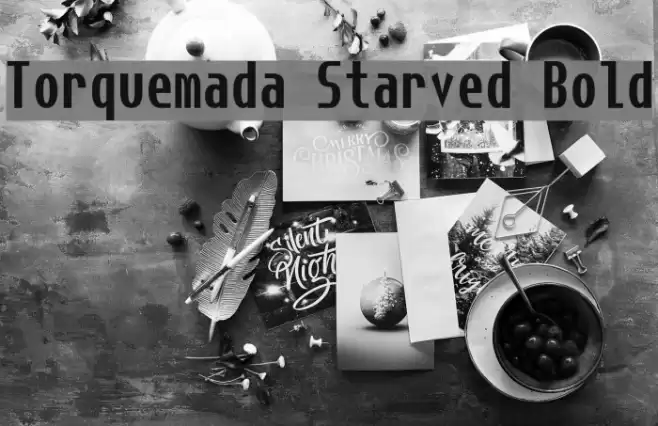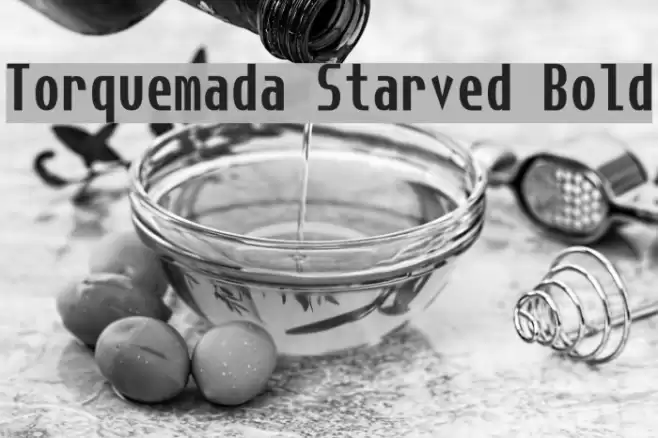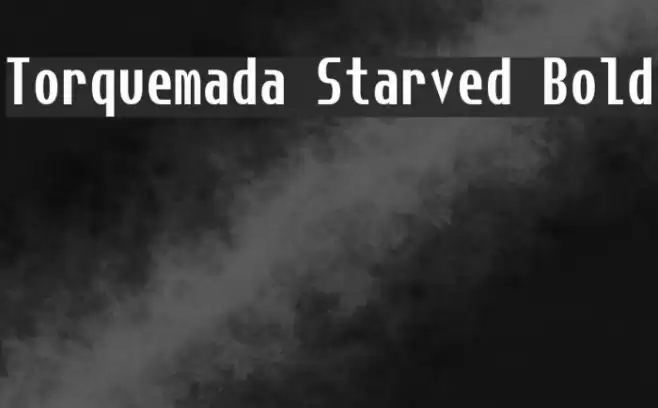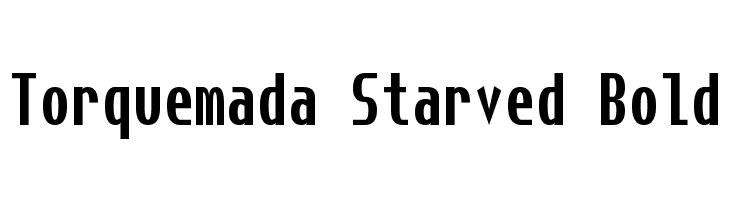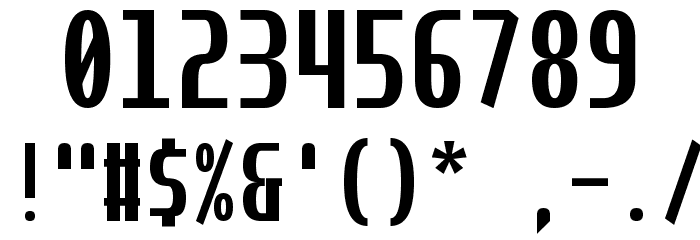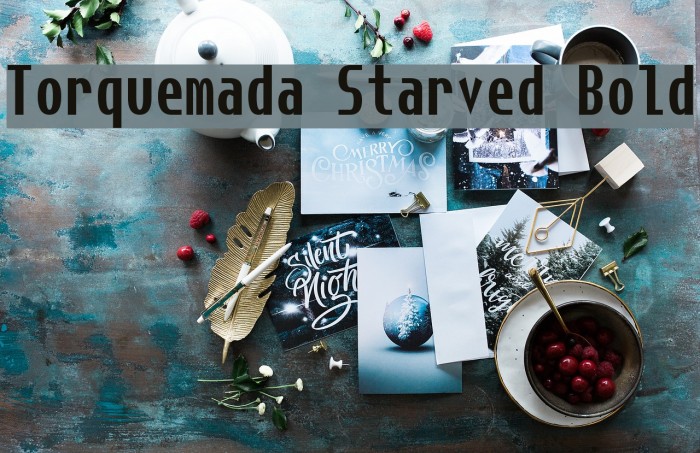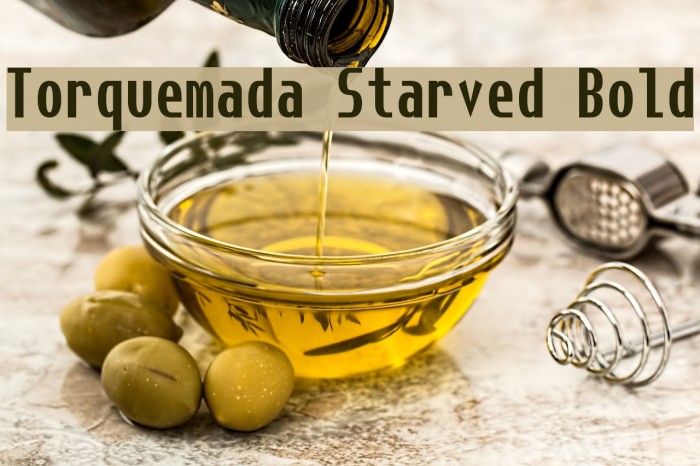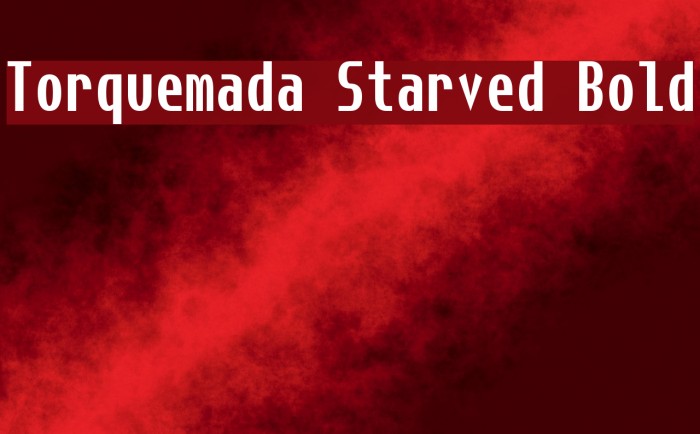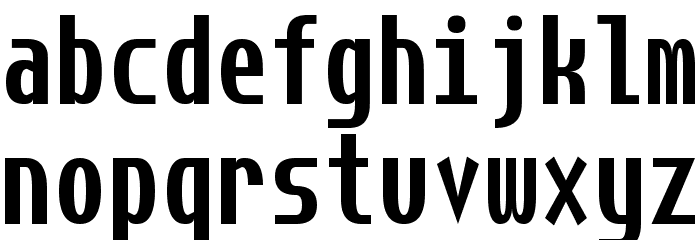
Torquemada Starved Bold Font
Torquemada Starved Bold Description
This font features a bold and striking design with a modern twist. The characters are tall and narrow, giving it a condensed appearance. The strokes are consistent in width, providing a uniform look across all characters. The uppercase letters have a distinct geometric feel, while the lowercase letters maintain a similar style with slight variations in curvature. The numerals are clear and easy to read, matching the overall aesthetic. Special characters are well-integrated, maintaining the font's cohesive design. This font's boldness and unique style make it suitable for attention-grabbing headlines and impactful designs.
A bold, modern font with a condensed, geometric style from Uncategorized fonts.
- Proposed Projects: Ideal for posters, logos, branding materials, and editorial headlines.